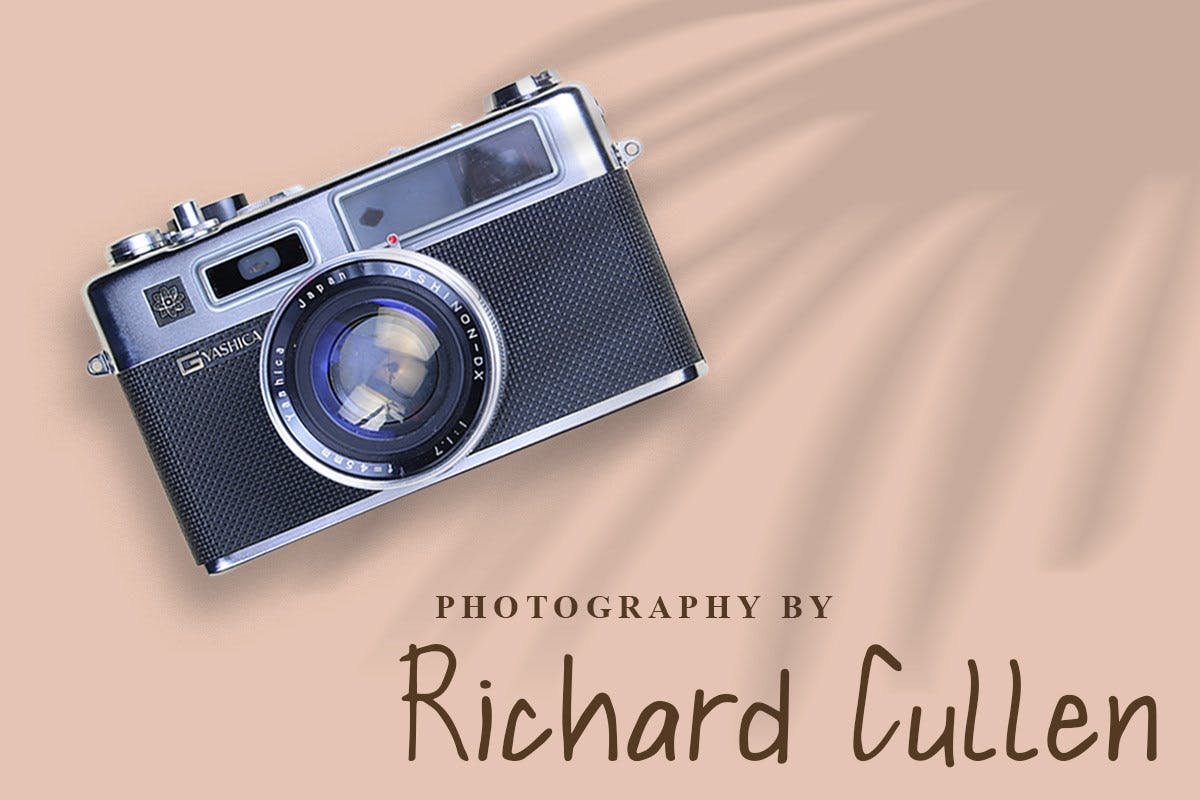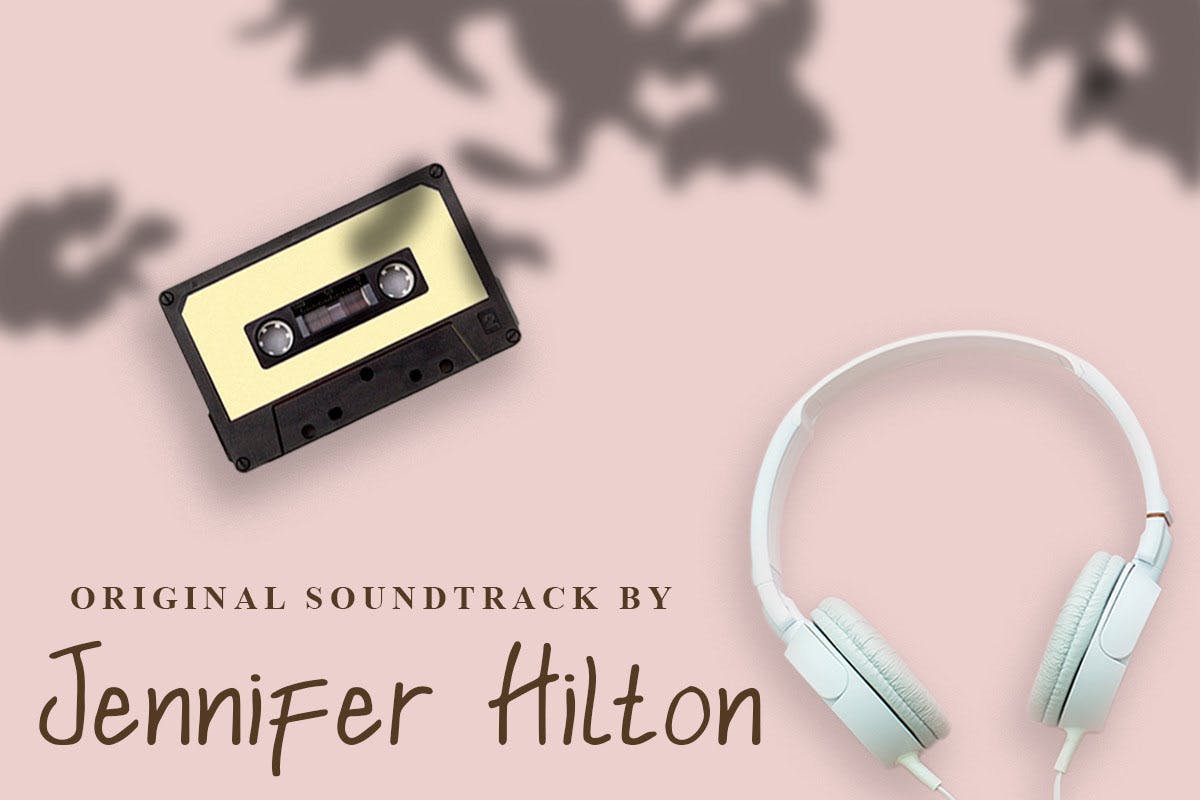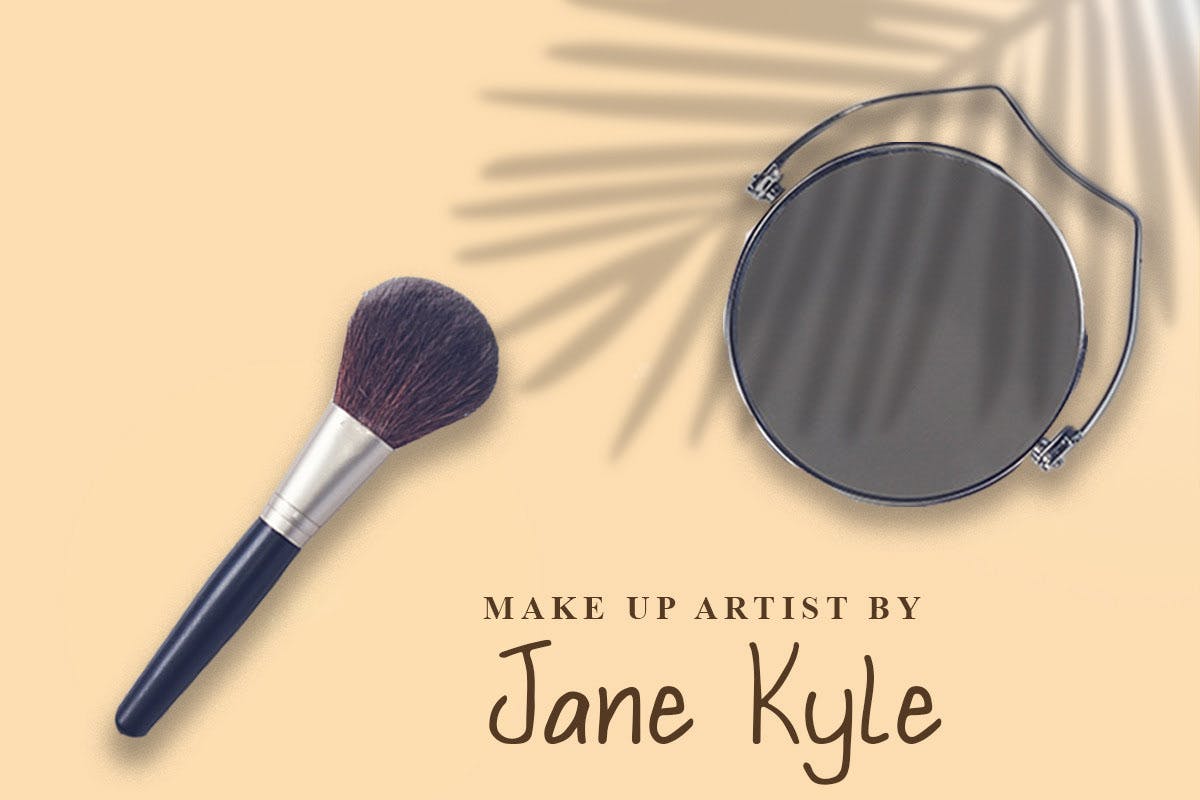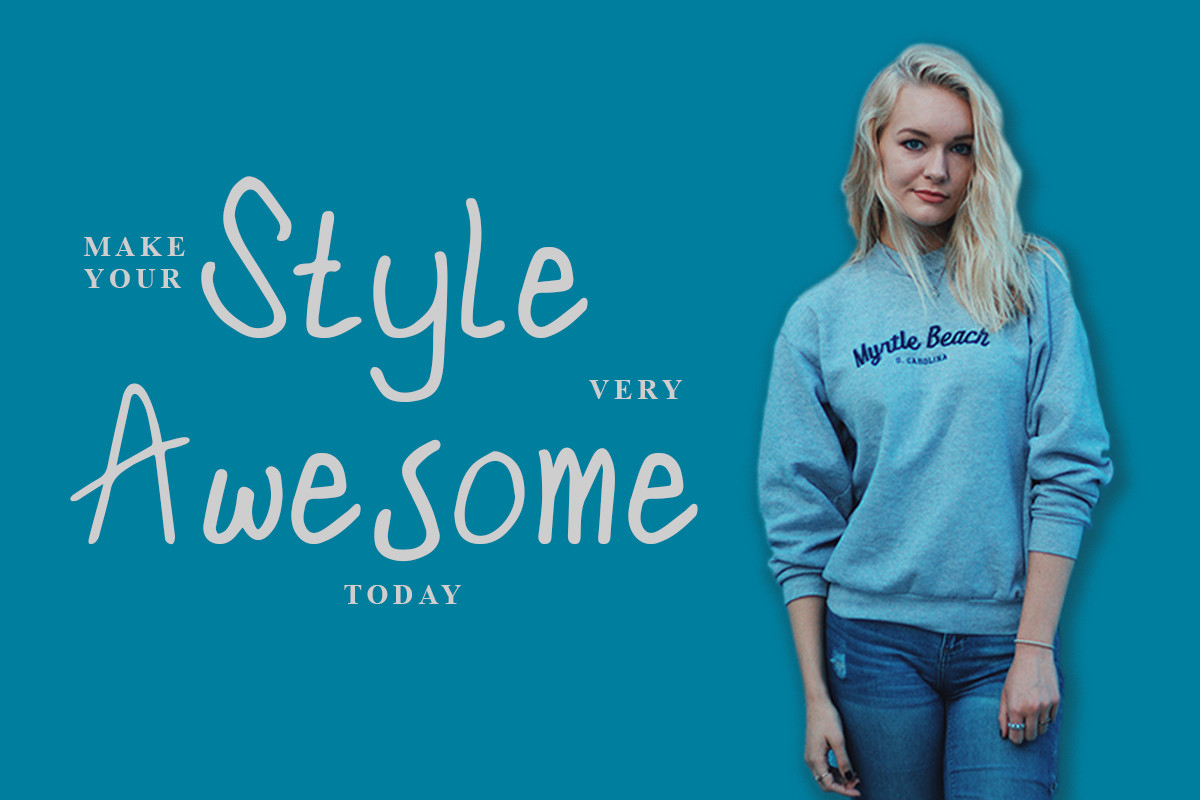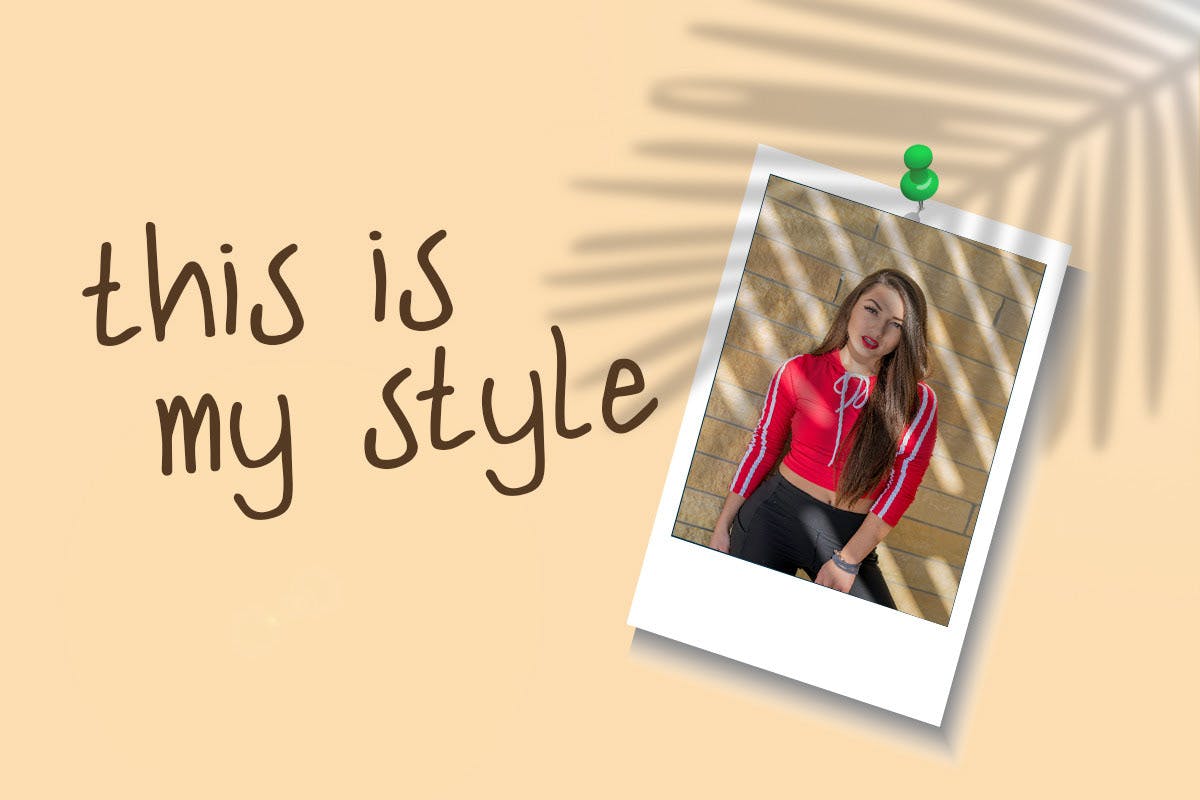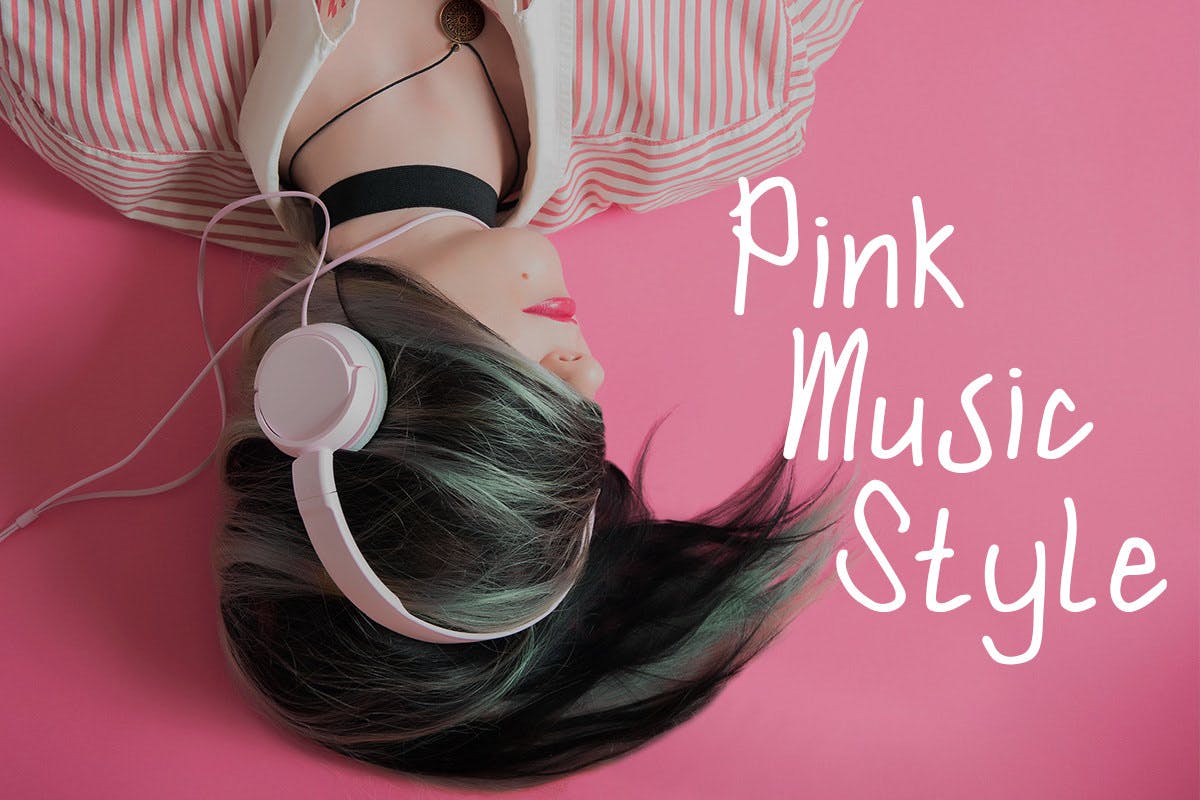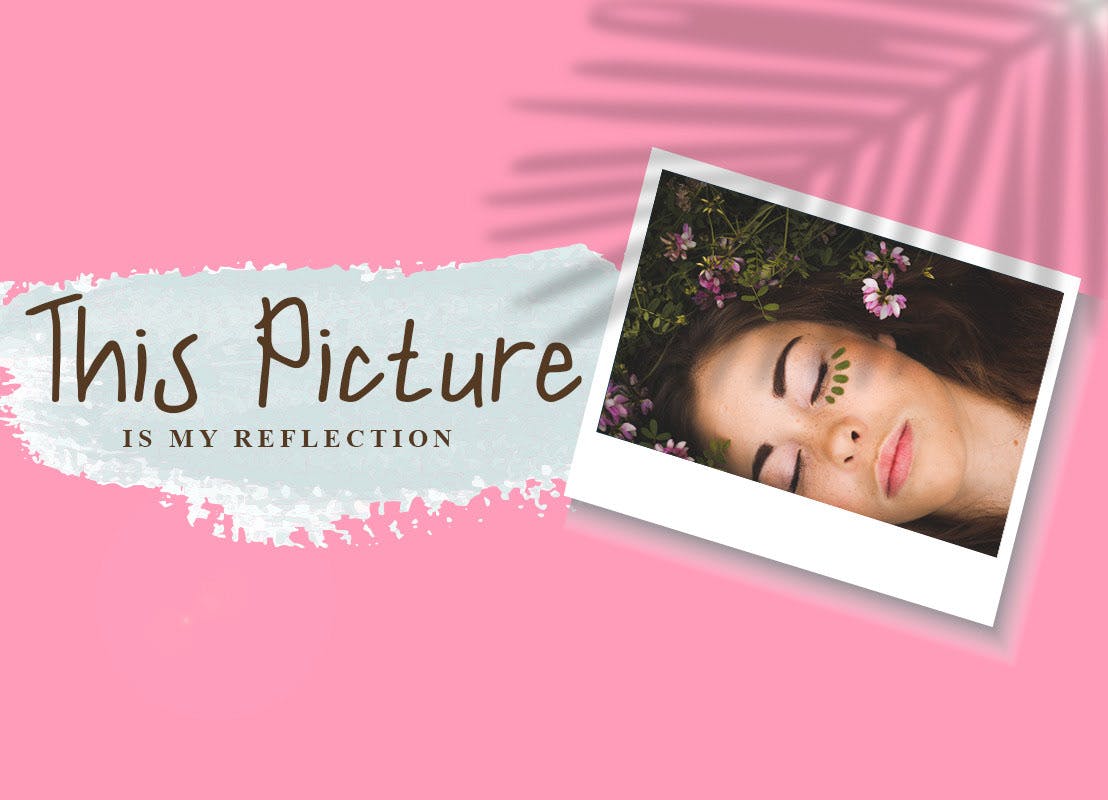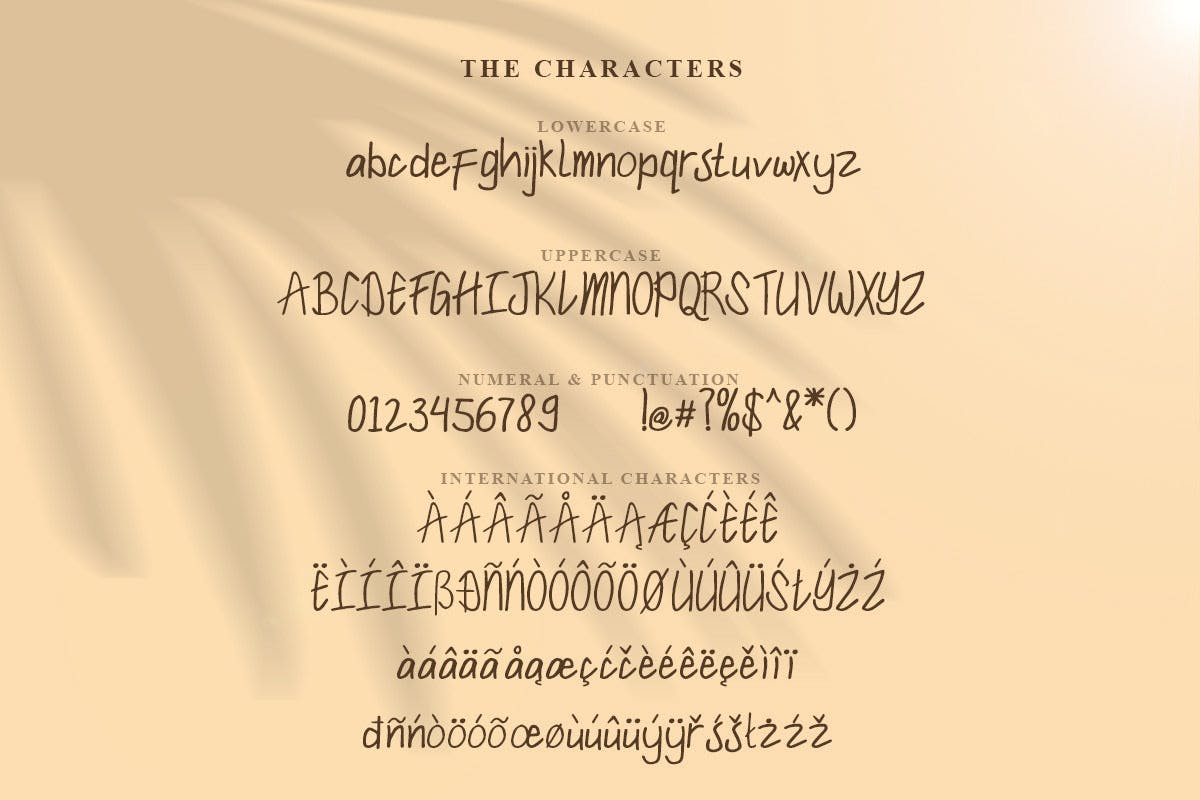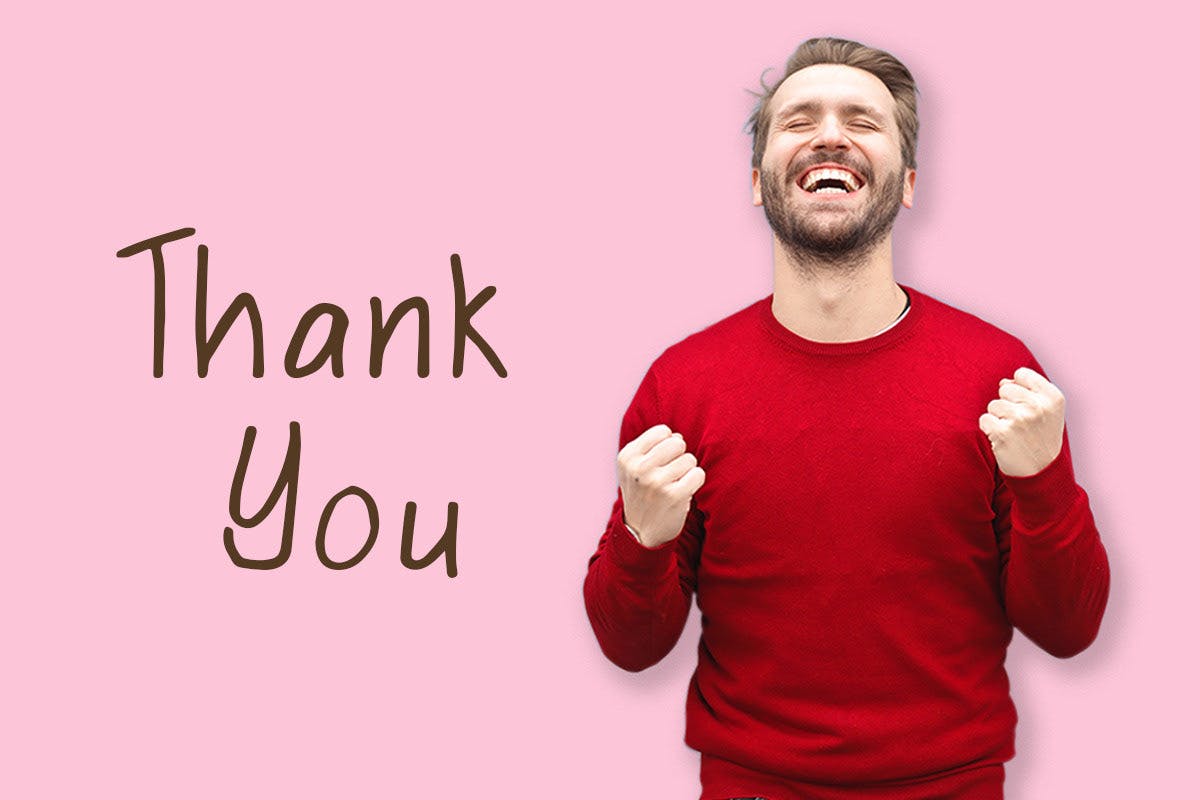
Free Demo Fresh Clinn Display Font
Free Demo Fresh Clinn Display Font is a modern display handwritten font. It makes this font look awesome natural. This Font demo is suitable for various projects such as logos & branding, invitation, stationery, wedding designs, etc. However, this is a font with basic characters. Also, it is coming with a personal license only. But, if you wish to access more features and use it for commercial works, go get the premium version as well.